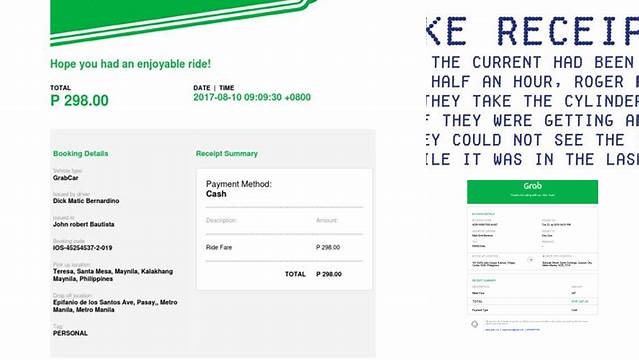
Grab Receipt Font: Free Download & Design Secrets
Understanding the Grab Receipt Font Phenomenon
Hey guys, ever found yourself looking at a Grab receipt and thinking, "Man, that font looks good!"? Well, you're not alone. The Grab receipt font free download has become a surprisingly popular search query for designers, small business owners, and even just curious folks. It's more than just a font; it's part of Grab's unmistakable brand identity, clean, modern, and instantly recognizable. But why all the fuss, right? When we talk about the Grab receipt font free download, we're often delving into the subtle art of digital typography that makes a huge difference in user experience. This isn't just about reading words; it's about the feeling of professionalism, clarity, and trust that a well-chosen font conveys. Imagine trying to read a receipt in a Comic Sans-like font β totally different vibe, huh? The Grab receipt font contributes significantly to the app's polished image, ensuring that every piece of information, even something as mundane as a receipt, reinforces the brand's commitment to quality and efficiency. People are actively seeking a Grab receipt font free download because they want to emulate that same sense of trust and modern aesthetic in their own projects, whether it's for creating mockups, designing similar app interfaces, or simply appreciating good design. Itβs a testament to how effective Grab's design team has been in selecting a typeface that not only functions well but also resonates with a massive user base. So, before we jump into how you might get your hands on something similar, let's really appreciate why this particular font choice by Grab has captured so much attention and why the pursuit of a Grab receipt font free download is a genuine quest for many creative minds out there.
Why Everyone's Looking for the Grab Receipt Font Free Download
Seriously, guys, the hunt for the Grab receipt font free download isn't just a random design trend; there are some solid reasons behind it. First off, for many, it's all about authenticity. If you're building an app mockup, designing a presentation for a tech startup, or even just creating personal finance trackers, having a receipt that looks genuinely like it came from Grab adds an incredible layer of credibility and realism. Imagine presenting a new feature for a ridesharing app, and your example receipts look exactly like what users are already familiar with β it instantly makes your concept more relatable and professional. Thatβs where the desire for a Grab receipt font free download really kicks in. Beyond authenticity, there's the aesthetic appeal. The font Grab uses for its receipts is clean, highly legible, and has a very contemporary feel. Itβs not overly decorative, nor is it bland; it strikes a perfect balance that's universally appealing. Designers often look for fonts with these characteristics for their own projects, seeking to replicate that same sense of modern simplicity and efficiency. Another huge reason is consistency. For businesses that might integrate with or refer to Grab's services, maintaining a consistent visual language can be crucial. Using a font that closely resembles the Grab receipt font helps in creating a seamless experience for users who are already accustomed to Grab's interface. And let's not forget the sheer curiosity from typography enthusiasts! Many people just love dissecting good design and understanding what makes it tick. They want to identify the font, understand its characteristics, and perhaps add it to their personal font library for inspiration. So, whether it's for professional mockups, personal design projects, or just a love for good typography, the quest for a Grab receipt font free download is driven by a diverse set of needs and appreciation for excellent design.
The Official Grab Font: Is It Publicly Available?
Okay, let's get real about the Grab receipt font free download for a second. While everyone wants to get their hands on the exact font Grab uses, the official stance is a bit more nuanced. Grab, like most major companies, invests heavily in its brand identity, and that includes its typography. They typically use custom-licensed or proprietary fonts that are part of their brand guidelines. This means that the exact Grab receipt font free download for direct, official use is generally not available to the public. Companies do this to maintain brand consistency, protect their intellectual property, and often to ensure they have unique visual assets that differentiate them from competitors. So, if you're searching for "Grab Sans" or "Grab Display" to directly download for free from an official source, you'll likely come up empty-handed. However, that doesn't mean all hope is lost for achieving a similar look! What designers often do when facing such situations is to identify fonts that are extremely similar in style, weight, and legibility. These alternatives can often provide a near-identical aesthetic without infringing on any proprietary rights. The key here is to understand that while a direct, official Grab receipt font free download might not be a reality, the design principles and visual characteristics of their chosen typeface can certainly be emulated. Many excellent open-source or commercially available fonts share the same clean, geometric, and modern traits that make Grab's font so appealing. So, don't get discouraged! The goal isn't necessarily to possess Grab's exact font, but rather to achieve that clean, professional, and highly legible look for your own projects. We'll explore some fantastic alternatives that will help you capture that signature Grab aesthetic without stepping into any legal gray areas. It's all about smart design, guys!
Identifying the Core Typeface of Grab Receipts
When we talk about the Grab receipt font free download, we first need to break down what kind of typeface Grab actually uses for its receipts and other UI elements. From a designer's perspective, it's clear that Grab leans towards a modern, geometric sans-serif font. Sans-serif fonts, for those who might not know, are typefaces without the small decorative strokes (serifs) at the end of character strokes. Think Arial or Helvetica β very clean, very straightforward. The font used by Grab, particularly on receipts, exhibits several key characteristics: it's highly legible even at small sizes, which is crucial for transactional documents like receipts. The letterforms are generally open and clear, making them easy to distinguish. There's also a good balance between character width and height, contributing to its overall clean appearance. The weight of the font usually appears regular or medium, providing excellent contrast against a white or light background without being too heavy or too thin. Furthermore, the font often features a somewhat monospaced or semi-monospaced feel for numerical data, which is common in receipt designs to ensure columns align perfectly. This particular style helps in displaying financial figures clearly, preventing any ambiguity. While the exact Grab receipt font might be a custom or heavily licensed variant of a popular typeface, its general aesthetic points towards fonts like 'Open Sans', 'Lato', 'Roboto', or 'Montserrat'. These are all widely recognized for their readability and modern appeal. Understanding these core characteristics β clean sans-serif, high legibility, balanced proportions, and sometimes a hint of monospacing for numbers β is crucial if you're aiming to find a Grab receipt font free download or a suitable alternative. It's not just about finding any sans-serif; it's about finding one that captures that specific blend of professionalism and user-friendliness that Grab has mastered. Recognizing these design elements is your first step to recreating that iconic look for your own projects, whether you're a seasoned designer or just starting out.
Unpacking the Importance of Font in Digital Receipts
Guys, let's dive into something that might seem minor but is actually a huge deal: the importance of font choice in digital receipts, especially when considering the Grab receipt font free download. You might think, "It's just a receipt, who cares about the font?" But trust me, everyone does, even subconsciously! A well-chosen font for digital receipts significantly impacts user experience, brand perception, and even the practical utility of the information. Firstly, readability is paramount. Receipts are all about quick, clear information transfer: date, time, amount, items, driver/merchant details. If the font is too ornate, too thin, too squished, or too light, users will struggle to quickly find what they need, leading to frustration. The Grab receipt font excels here, offering excellent legibility that makes scanning details effortless. Secondly, it reinforces brand identity. Every interaction a user has with an app, even a receipt, is an extension of the brand. A consistent, professional font reinforces Grab's image as a reliable, modern service. If the receipt font suddenly changed to something informal or poorly chosen, it could subtly erode trust and brand perception. Third, it aids in organization and clarity. Fonts with good character spacing and line height, like the one used by Grab, help in neatly organizing data. This is particularly true for numerical data, where aligning columns and ensuring distinct digits prevents errors and confusion. This level of clarity is vital when users are reviewing expenses or transaction histories. Finally, a good font contributes to a sense of professionalism and polish. It shows attention to detail, implying that if Grab cares this much about their receipts, they care about the rest of their service too. So, when you're looking for a Grab receipt font free download, you're not just looking for a typeface; you're looking for a tool that embodies clarity, trust, and brand excellence in a small but mighty digital document. It's a key ingredient in making a mundane interaction feel sophisticated and reliable. Never underestimate the power of good typography, especially in places you least expect it!
Your Guide to Finding the Grab Receipt Font for Free
Alright, guys, let's get down to the brass tacks: finding something that looks just like the Grab receipt font free download. As we discussed, getting the exact proprietary font for free from an official source is pretty unlikely. But that doesn't mean you can't achieve that sleek, professional look! Your journey to a Grab-like receipt font will typically involve exploring high-quality, free-to-use alternatives that share the same characteristics. The best place to start is with large font repositories that offer free licenses, often for both personal and commercial use. Think Google Fonts, Font Squirrel, or even Dafont and Behance for designer-contributed typefaces. When you're searching, focus on keywords like "modern sans-serif," "geometric sans-serif," "highly legible font," or "UI font." These terms will lead you to typefaces with the right aesthetic. What you're looking for are fonts that have clean lines, good character spacing, and a neutral, professional feel β similar to what you'd expect from the Grab receipt font. Pay close attention to the various weights available (light, regular, medium, bold) because often, it's a specific weight that matches Grab's typical usage. For numerical data, look for fonts that have clear, distinct digits and good alignment. Many free fonts are incredibly well-designed and can perfectly emulate the Grab style. You might need to download a few options and test them out in your design software to see which one truly captures that essence. Don't be afraid to experiment! The beauty of the Grab receipt font free download quest, even if it leads to an alternative, is that it opens you up to a world of fantastic typography that can elevate all your projects. So, instead of being fixated on a single, potentially unavailable font, broaden your horizons and discover the perfect free counterpart that will make your designs shine with that Grab-like clarity and professionalism. It's an exciting design challenge with plenty of rewarding solutions.
Installing the Grab Receipt Font Alternatives on Windows & Mac
Alright, guys, you've got your chosen Grab receipt font alternatives downloaded, probably in a .zip file, and you've unzipped it. Now, how do you get these beauties onto your computer so you can actually use them in your design software? The installation process is pretty straightforward for both Windows and Mac, so let's walk through it. For Windows users: Open the folder where you unzipped your font files. You'll see files ending in .ttf or .otf. You might have several files if the font comes with different weights (e.g., "FontName-Regular.ttf", "FontName-Bold.ttf"). Simply right-click on each font file you want to install. From the context menu, select "Install" or "Install for all users." That's it! Windows will quickly install the font, and it should then be available in any application that uses your system's font library, such as Adobe Photoshop, Illustrator, Microsoft Word, or even your web browser's developer tools. For Mac users: The process is just as simple, if not even easier. Navigate to the folder containing your .ttf or .otf font files. Double-click on each font file. This will open a small window called "Font Book." In this window, you'll see a preview of the font. Look for the "Install Font" button, usually located at the bottom right or center of the window. Click it, and Font Book will install the font into your system. Just like on Windows, once installed, the font will be accessible across virtually all your applications. A quick pro-tip for both operating systems: If your design software was open during the installation, you might need to restart it for the newly installed font to appear in your font list. It's a common caching issue, so don't panic if you don't see it immediately. By following these easy steps, you'll have your Grab receipt font alternatives up and running in no time, ready to infuse that modern, clean aesthetic into all your projects. Super easy, right?
Using the Grab Receipt Font Alternatives for Personal Projects
Now that you've successfully installed your chosen Grab receipt font alternatives, let's talk about the fun part: actually using them in your personal projects! This is where you can unleash your creativity and give your designs that professional, Grab-like touch without any official Grab receipt font free download. For personal projects, the sky's the limit, guys. Are you creating a budget tracker in Excel or Google Sheets? Use your new font to make those numbers pop and give your financial overview a sleek, app-like feel. Building a personal website or blog? The clean lines and excellent legibility of a Grab-style font make it perfect for body text or even headings, ensuring your content is easy to read and looks super modern. Maybe you're dabbling in graphic design for social media posts or creating custom invitations? A font that mirrors the Grab receipt font aesthetic can add a touch of sophistication and clarity to your visuals. Think about mockups for app ideas you're brainstorming β using this font will make your concepts look much more polished and realistic, even if it's just for your eyes. From crafting digital notes in a design journal to making custom labels for your pantry, these fonts bring a level of design thoughtfulness that elevates everyday tasks. The beauty of using these free alternatives is that you get to experiment without any cost, perfecting your design skills and building a portfolio of work that looks truly professional. Remember, good design isn't just for big corporations; it's for everyone, and having access to high-quality typefaces, even if they're alternatives to the Grab receipt font, empowers you to create stunning things. So go ahead, open up your favorite design software, and start playing around β you'll be amazed at the difference a great font can make!
Alright, guys, you've scored a fantastic Grab receipt font alternative, and now you want to use it effectively in your graphic design projects. Here are some pro tips to make sure your designs truly shine with that clean, modern Grab aesthetic. First off, master hierarchy. The Grab receipt font style thrives on clear visual hierarchy. Use different weights (light, regular, medium, bold) from your chosen font family to differentiate between primary information (like totals or headings), secondary information (like line items), and tertiary details (like transaction IDs or fine print). This guides the reader's eye effortlessly through the content. Don't be afraid to vary font size subtly as well. Second, embrace white space. This is perhaps the most crucial tip for emulating Grab's clean design. Give your text and sections plenty of breathing room. Ample white space not only makes your design look sophisticated and uncluttered but also significantly improves readability. Avoid cramming too much information onto a single line or into a small area. Third, ensure consistent alignment. Digital receipts, like Grab's, often use precise alignment for numerical data (like prices or quantities) to ensure they stack neatly in columns. Use left, right, or center alignment consistently for different blocks of text. Misaligned text can make a design look messy and unprofessional. Fourth, choose your colors wisely. While the Grab receipt font itself is usually in a neutral color (black, dark gray), consider using a distinct brand accent color (like Grab's green) for key highlights or interactive elements if your design allows. Otherwise, stick to high contrast for text to ensure legibility. Fifth, optimize for screen readability. Since these fonts are designed for digital interfaces, ensure your font sizes and line heights are appropriate for screens. Test your designs on different devices and resolutions. Sixth, keep it simple. The beauty of the Grab receipt font style lies in its functional simplicity. Resist the urge to add excessive ornamentation or too many different typefaces. By focusing on these principles β hierarchy, white space, alignment, color, readability, and simplicity β you can effectively leverage your Grab receipt font alternative to create professional, clear, and visually appealing graphic designs that resonate with Grab's signature efficiency and modernity.
Future Trends in Digital Receipt Design and Typography